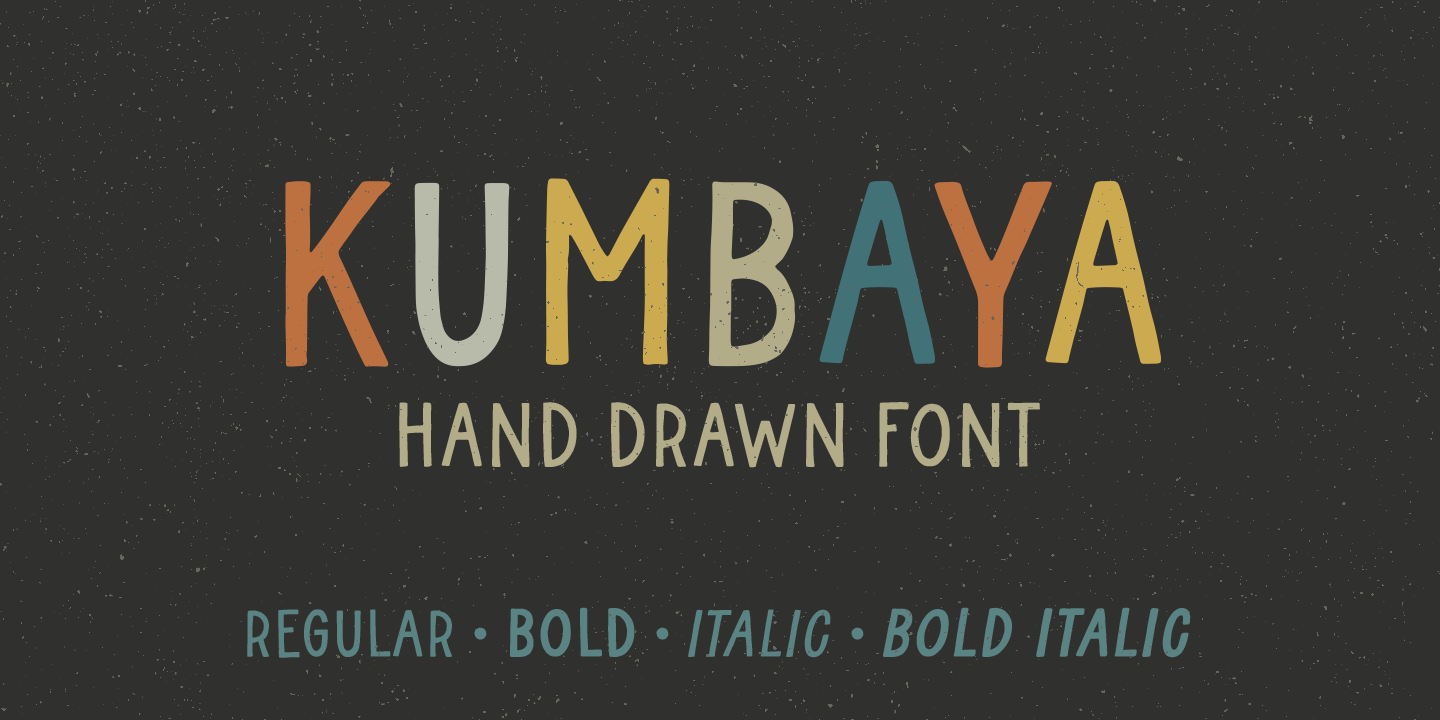
Kumbaya Font is perfect for community gathering announcements, summer camp materials, folk music festival promotions, spiritual retreat communications, peace and unity campaigns, group therapy resources, meditation center signage, cultural harmony events, interfaith dialogue materials, and collective healing initiatives. This harmonious typeface excels in applications where communal unity and peaceful togetherness need to be communicated with gentle warmth and inclusive spirit that embodies the essence of shared human connection and the healing power found in collective singing, community gathering, and peaceful coexistence among diverse groups.
What makes Kumbaya Font exciting is its remarkable ability to evoke the warm nostalgia and communal spirit of shared experiences around campfires and community circles through its gently flowing letterforms that seem to carry the collective voices of people coming together in harmony and mutual support. The font embodies the spirit of peaceful unity with its welcoming construction and community-minded proportions that suggest the inclusive embrace and shared vulnerability that characterizes meaningful group experiences and collective healing. Its warmly crafted character details and peaceful personality create an atmosphere of gentle acceptance that resonates with community leaders, spiritual guides, and peace advocates who understand the profound importance of creating safe spaces where people can come together across differences to share in common humanity.
The Kumbaya Font family typically includes Light, Regular, and Medium weights, each maintaining the signature peaceful characteristics and communal appeal. Some versions offer enhanced flowing variants that amplify the harmonious aesthetic, alternative character sets with peace symbols and community elements, and specialized treatments that promote the inclusive atmosphere. The family may also include outline styles perfect for sing-along materials and condensed variants that preserve the gentle character while providing layout flexibility for community bulletins and peace-building applications requiring authentic unity representation.
Whether you're creating community organization brands, peace initiative materials, or collective healing communications, Kumbaya Font Free Download delivers the perfect harmonious authenticity your unity-focused projects deserve. Its peaceful character and inclusive styling make it an invaluable choice for community centers, spiritual organizations, and peace-building groups working in community development, interfaith dialogue, and collective healing sectors where authentic peaceful unity and genuine inclusive spirit are essential for creating meaningful connections that bridge differences and celebrate shared human dignity and common ground.